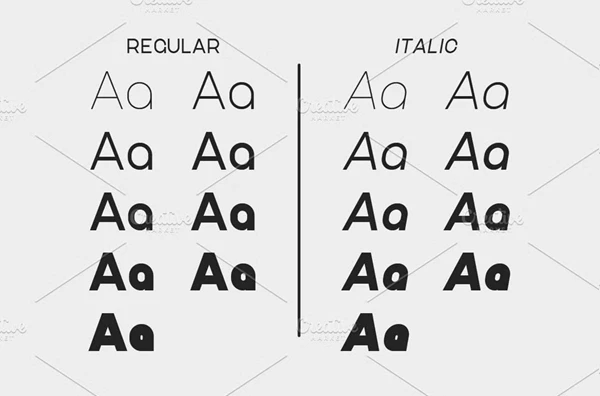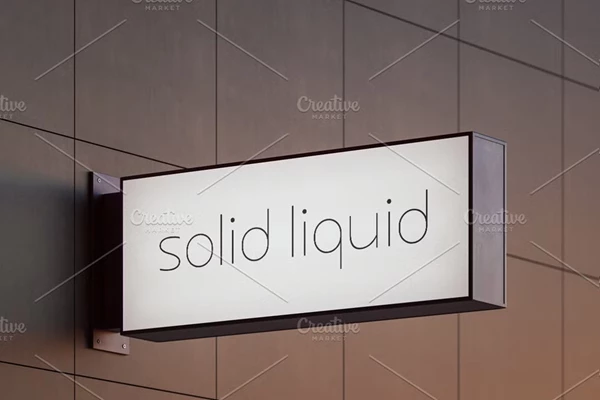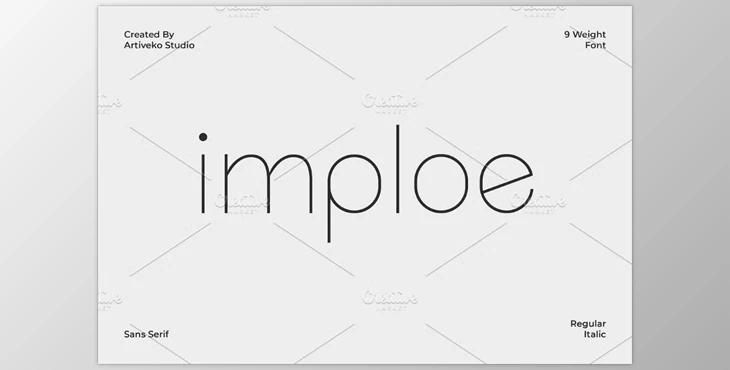
Imploe Modern Sans Font Family:
Imploe Modern Sans Font Family consists of clean-looking and elegant ones. Clean lines and curves are useful in branding, editorial, web, and user interface designs. Reliable and stylish for both display and text Imploe with various weights, multilingual options, various ligatures, and alternates will suit many design projects.
Also, the font can be use in vintage designs branding, clothing logos, clothes logos, and emblems of wedding cards, and more.
- Providers a significant quantity of glyphs for multiple design purposes.
- Provides creativity by adding more ligature and alternate.